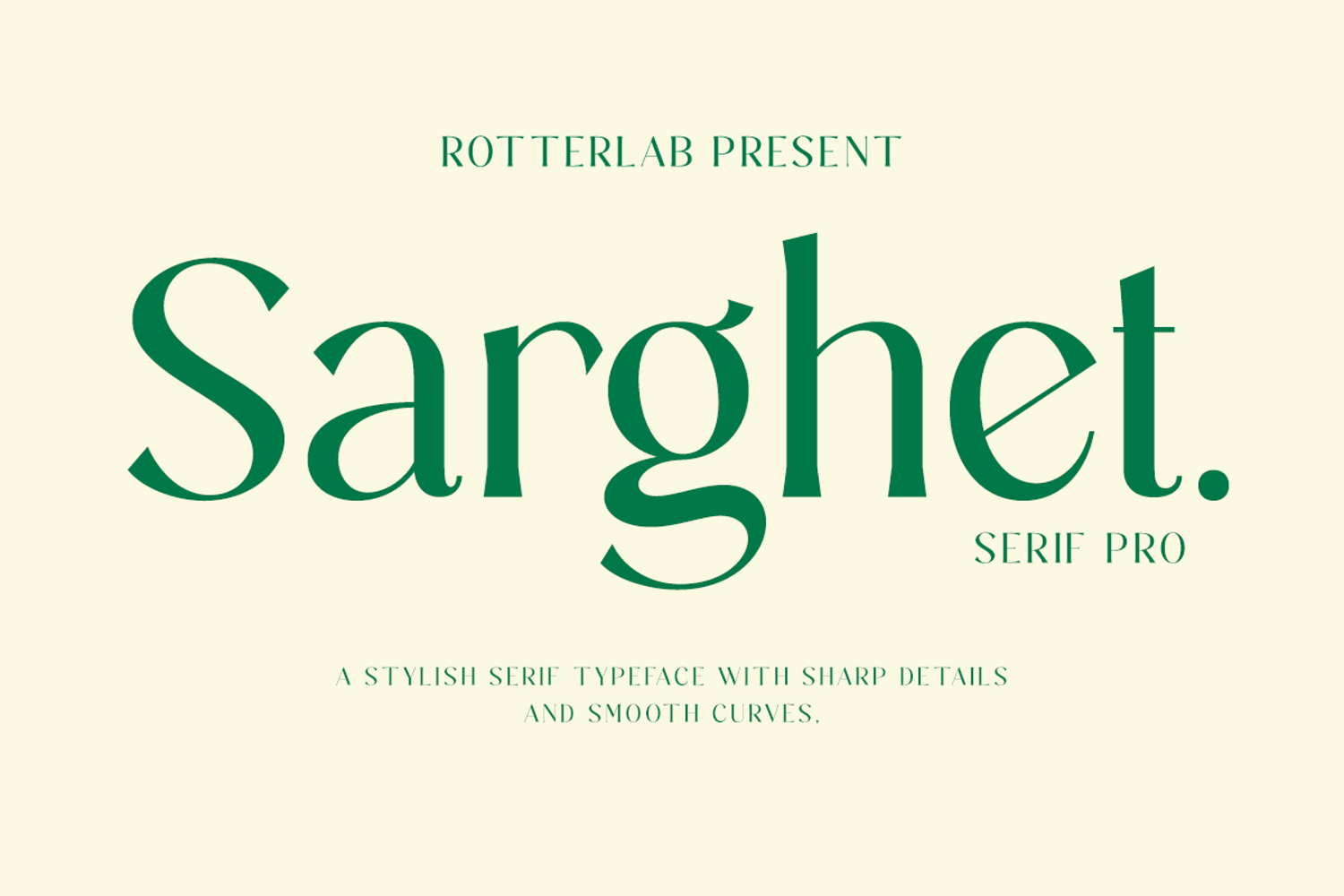
Sarghet Serif Pro has an elegant and modern character, combining smooth curves and sharp edges in each letter. Its design emphasizes a luxurious and artistic feel, perfect for visual projects such as branding, editorial, or premium product packaging.
The bold yet soft serif style makes Sarghet classy, ​​easy to read, and full of personality, conveying both a professional and aesthetic impression.